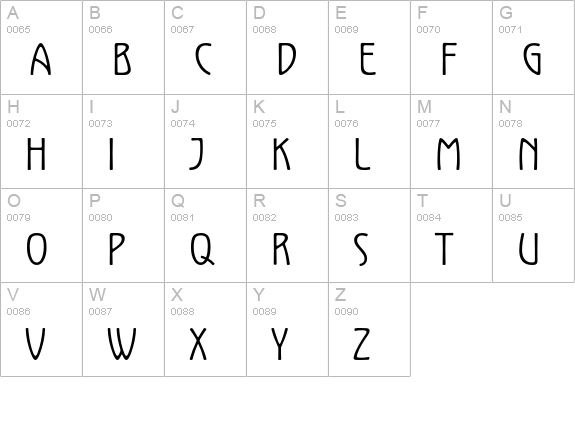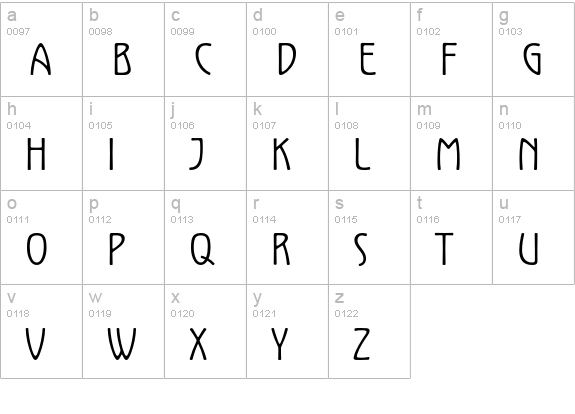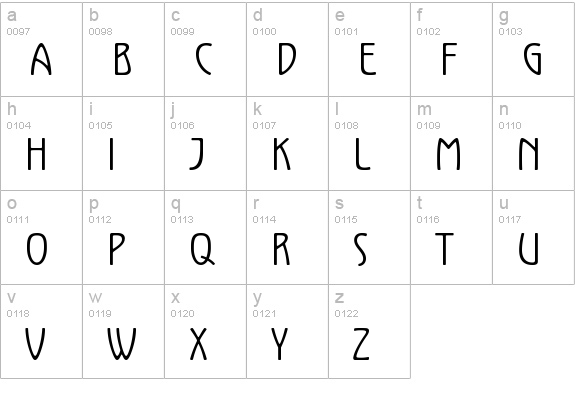
KoloNarrow font is a sleek and modern typeface that exudes elegance and sophistication. With its slender and condensed design, this font is perfect for adding a touch of refinement to any project. The clean lines and sharp angles of KoloNarrow make it versatile and suitable for a wide range of applications, from branding to editorial design. What makes KoloNarrow even more appealing is that it is available for free download at FontsMarket.com. This means that you can elevate your designs without breaking the bank. Whether you're working on a professional project or simply looking to enhance your personal creations, KoloNarrow is a fantastic choice that won't cost you a penny. Download it today and take your designs to the next level!